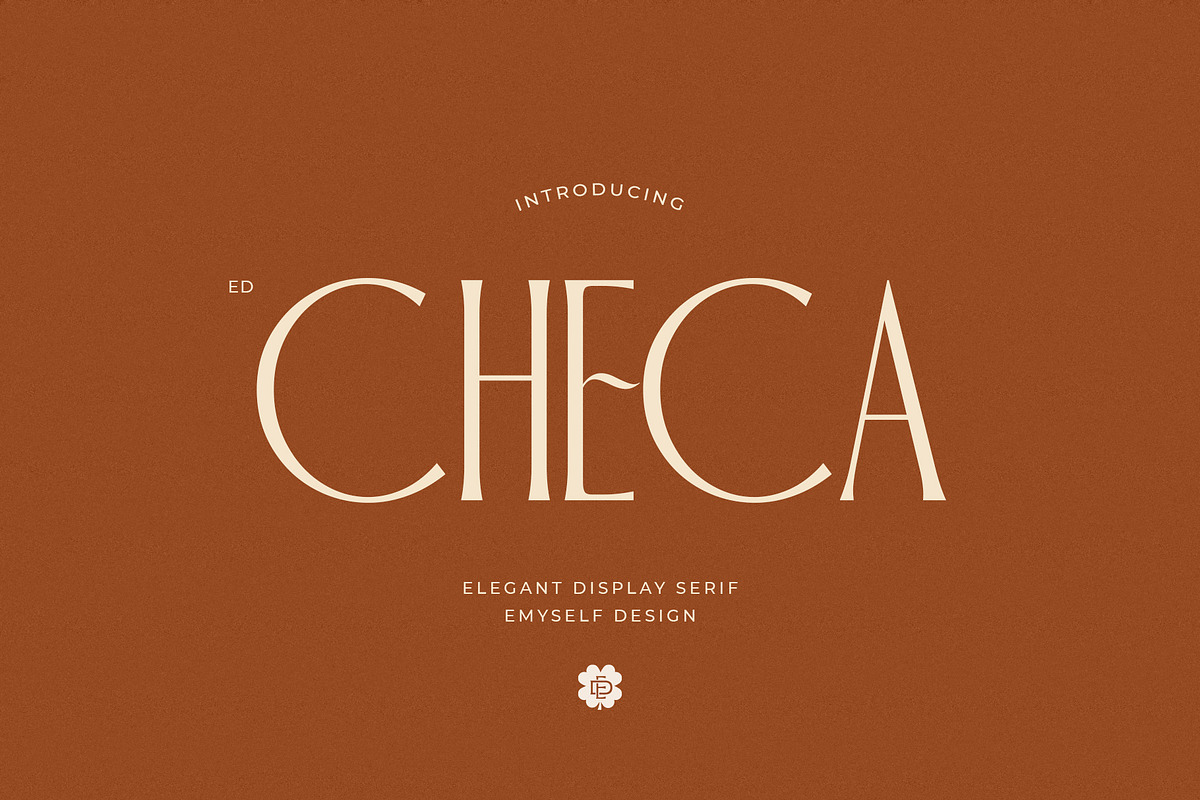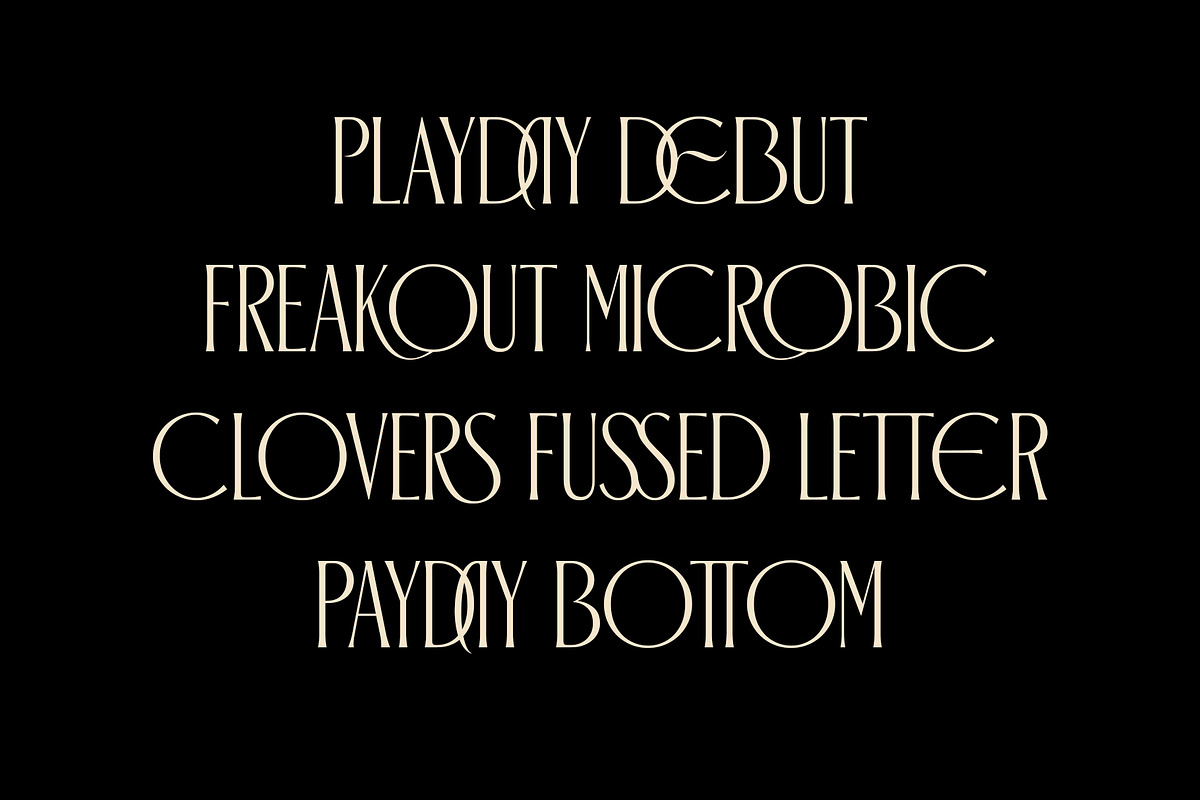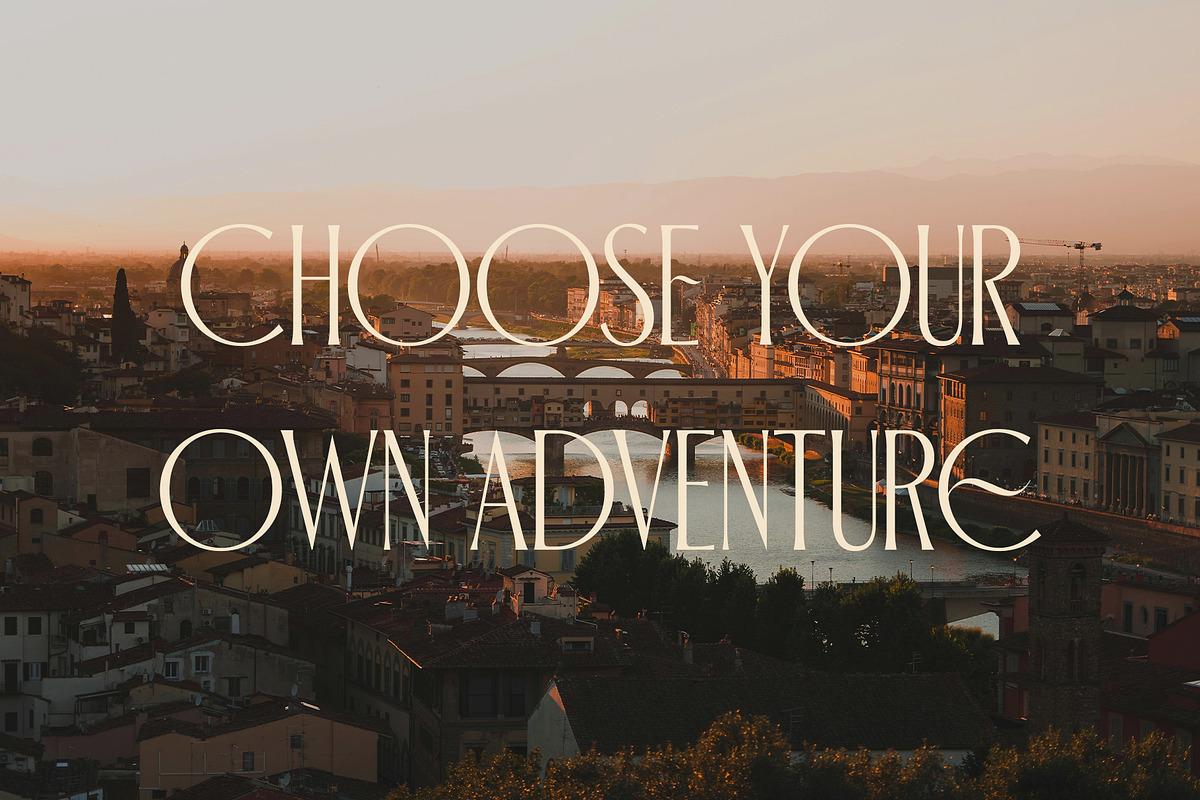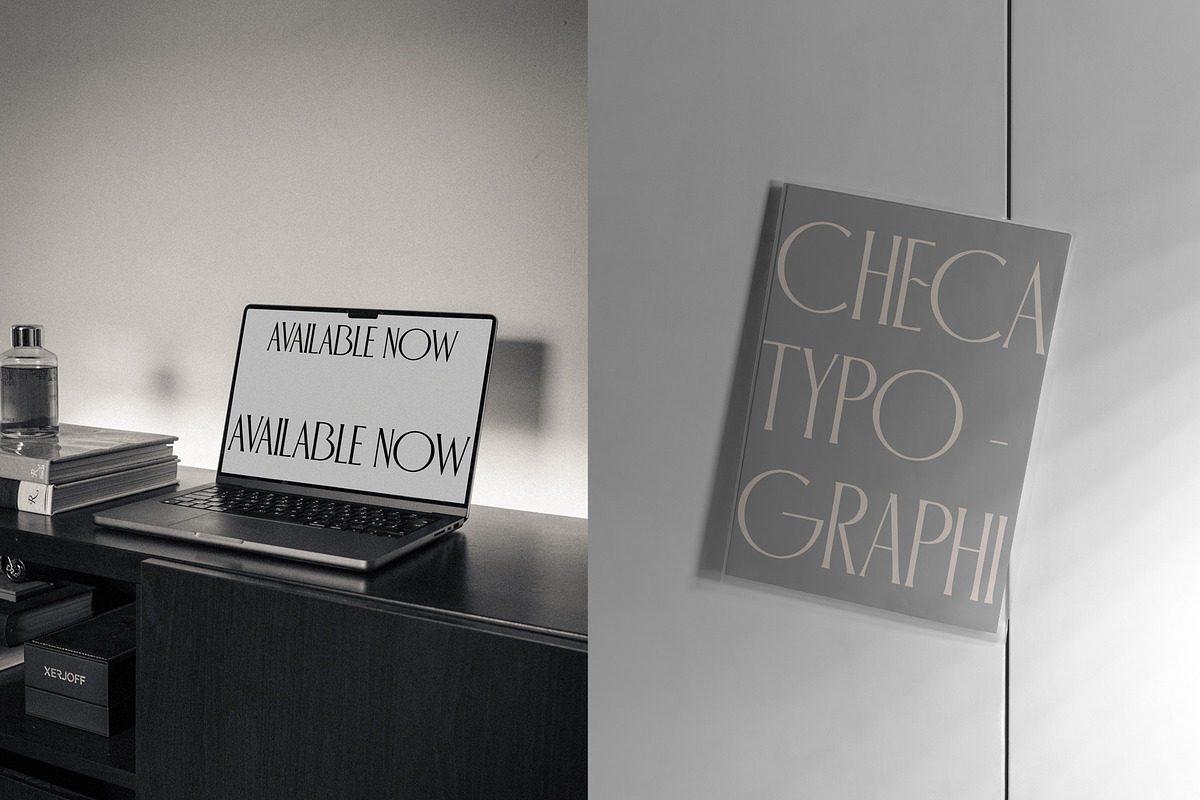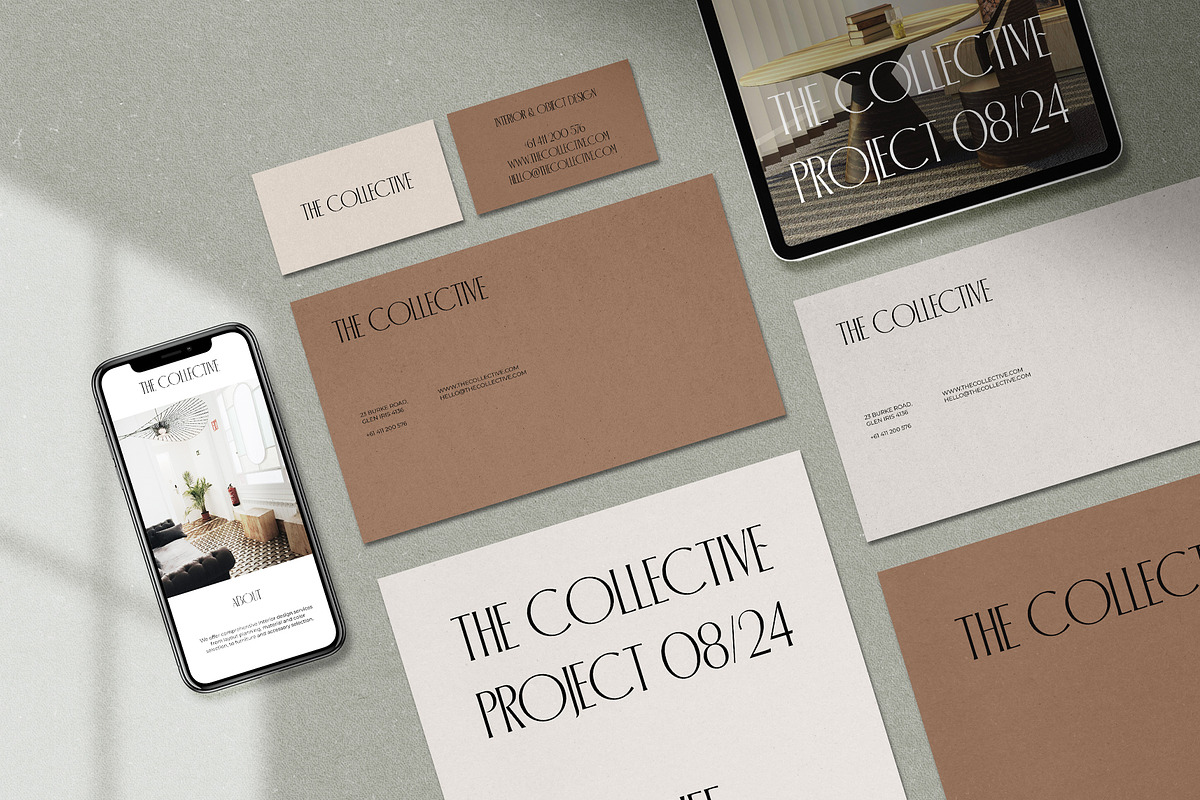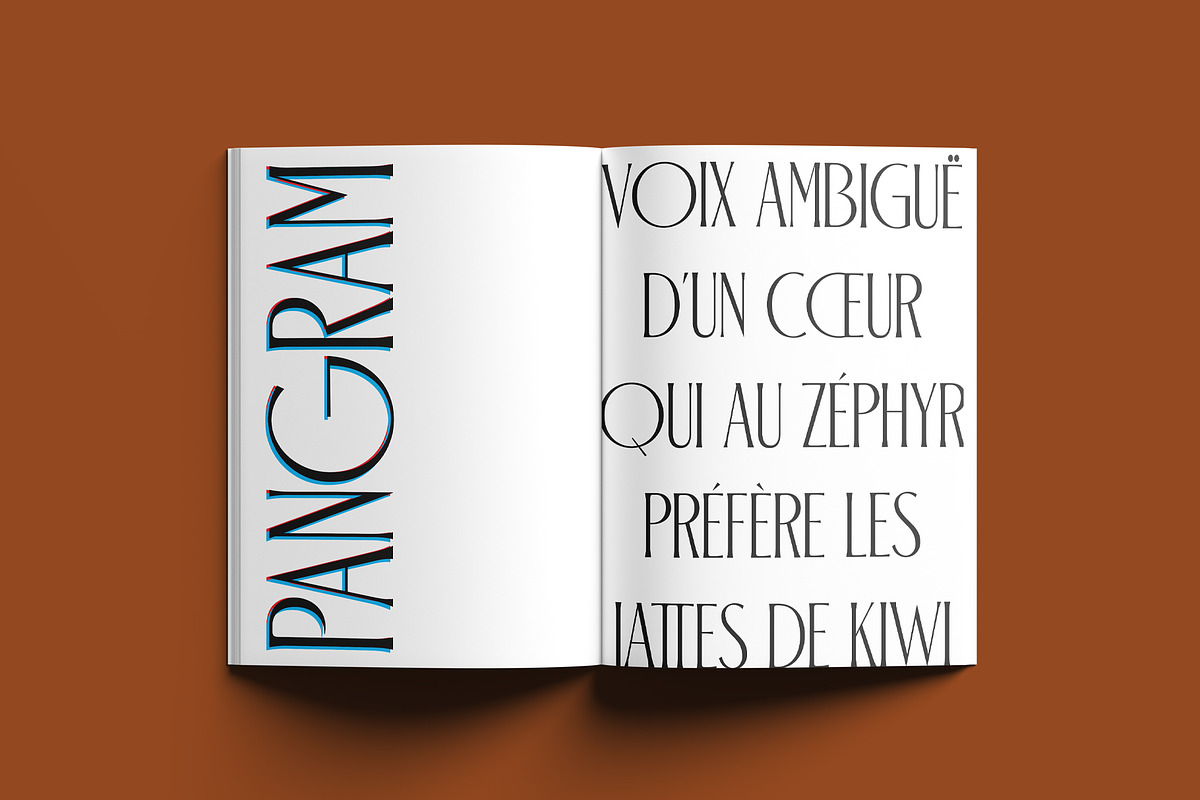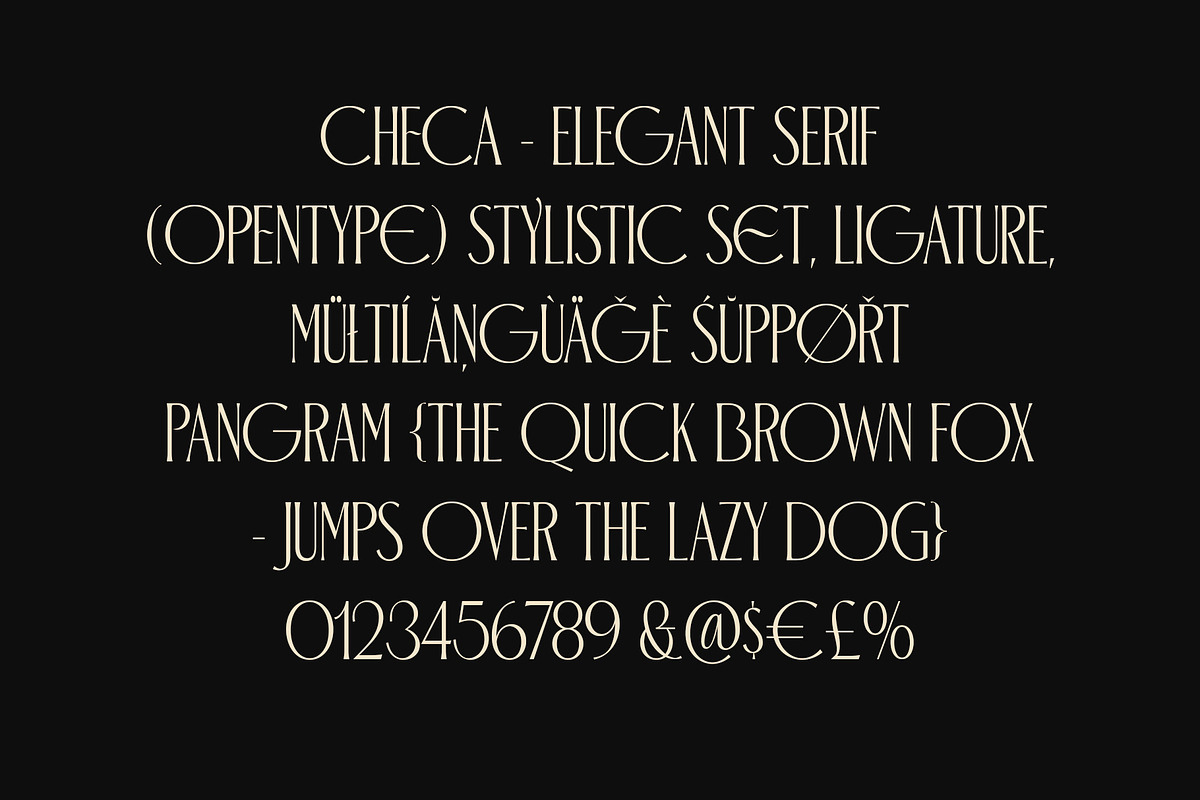
ED Checa - Elegant Serif
Checa is a serif display font that exudes classic and elegant charm. With OpenType features such as ligatures, stylistic sets, and multilingual support, this font provides great flexibility in various design projects.
- Stylistic set & Ligatures